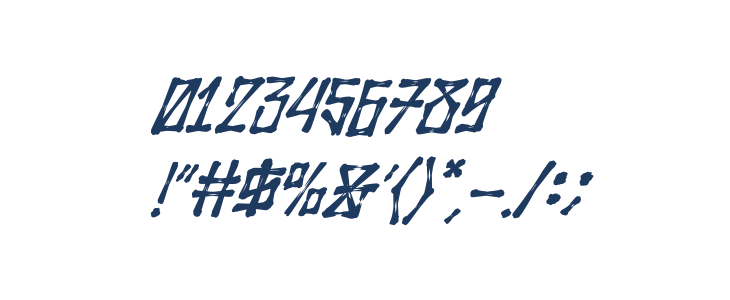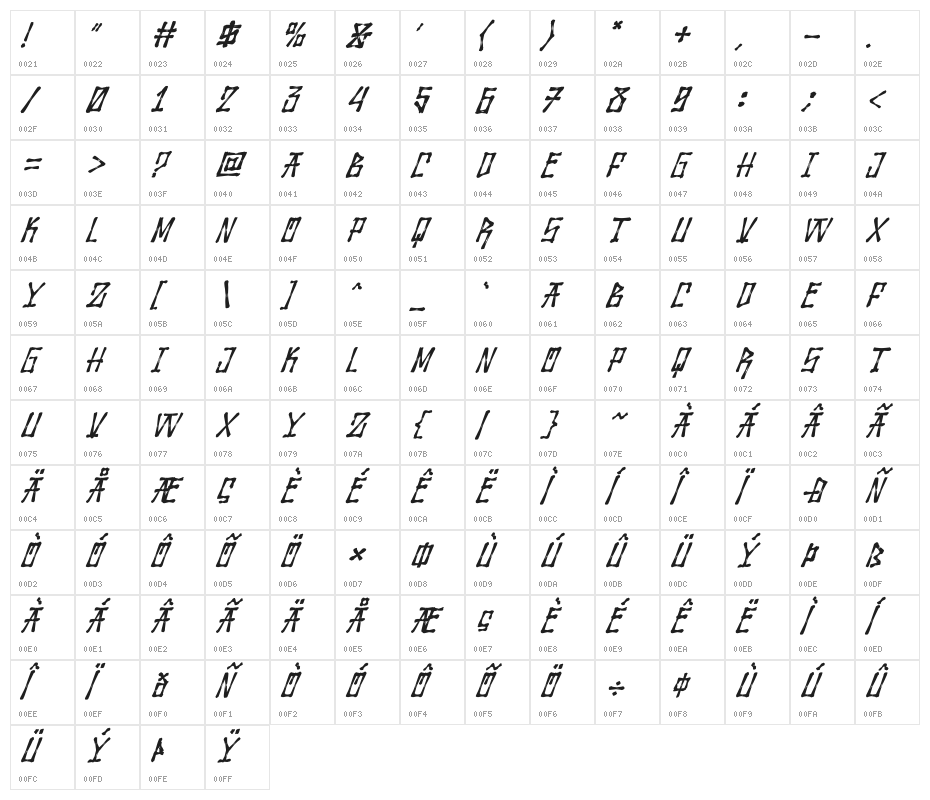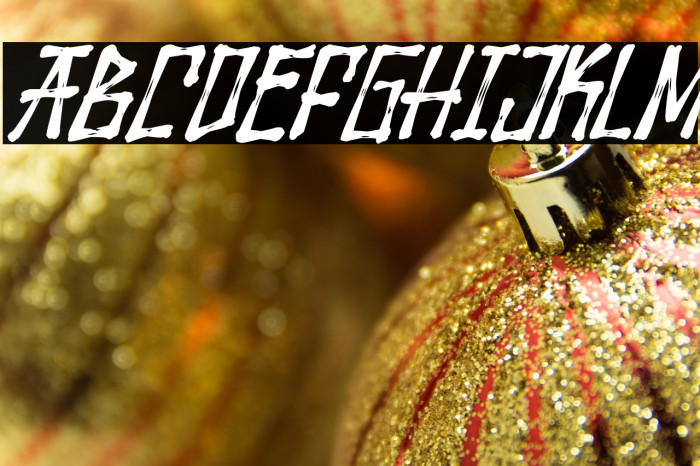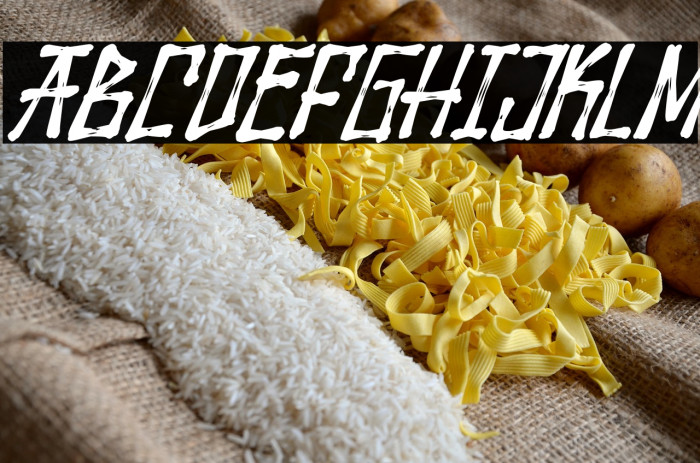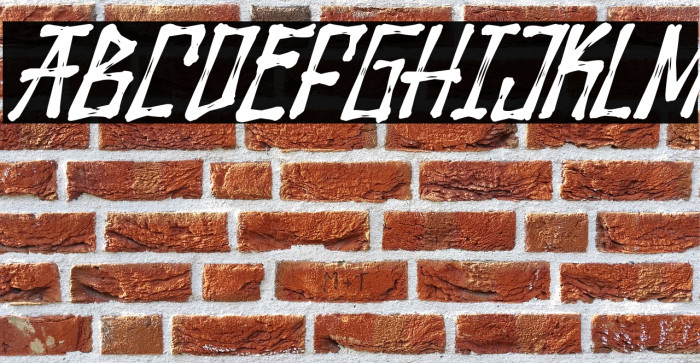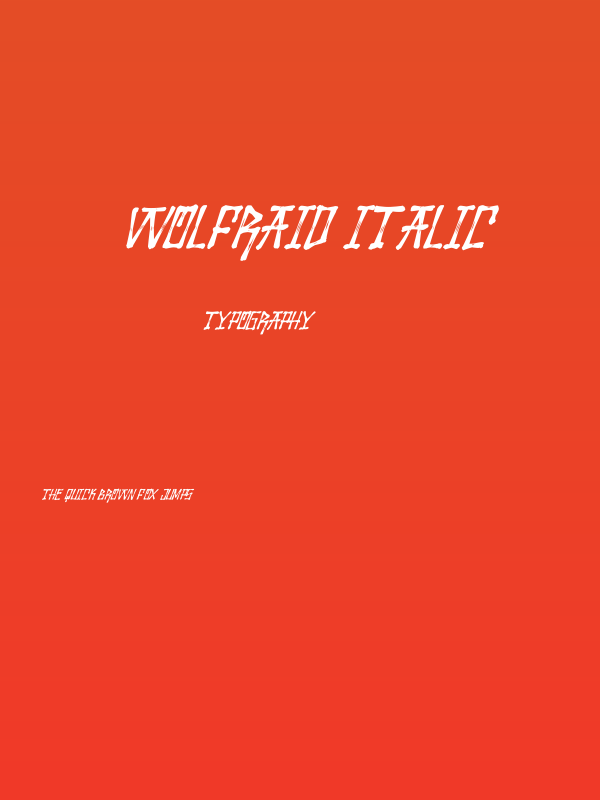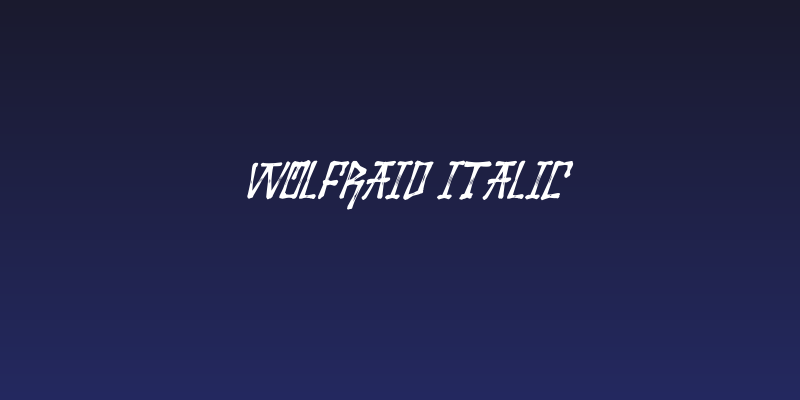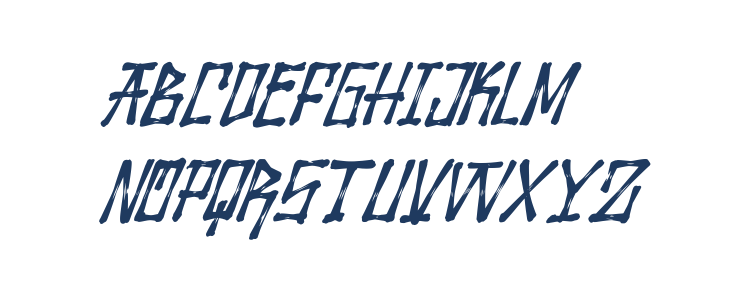
Wolfraid Italic Font
Wolfraid Italic Description
This font features a bold, italicized script style with a dynamic and energetic appearance. The letters are slanted, giving a sense of motion and fluidity. The strokes are thick and uneven, adding a rugged, hand-drawn feel. The uppercase and lowercase letters maintain a consistent style, with sharp angles and pointed edges. Numbers and special characters follow the same bold and expressive design, making them stand out. This font is perfect for creating impactful and eye-catching designs.